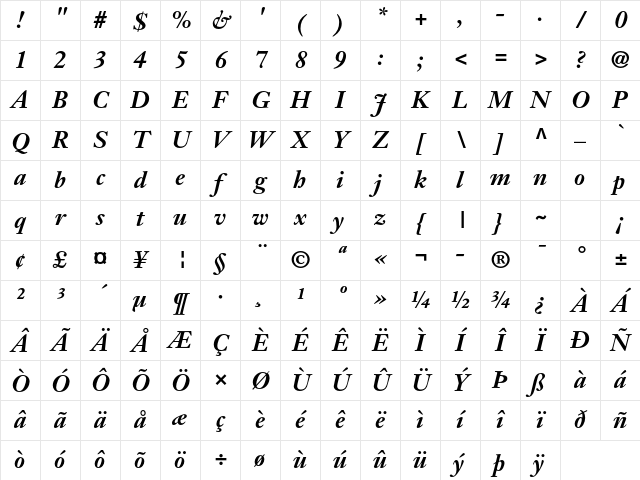
Janson Text LT Std 76 Bold Italic
Style: 76 Bold Italic
Designer: Nicholas Kis
Design Context for Janson Text LT Std
Janson Text LT Std is a composed and adaptable typeface that performs quietly and consistently across a wide range of design contexts. The slanted form adds forward momentum and visual energy. Its bold stroke weight gives it real presence on the page.